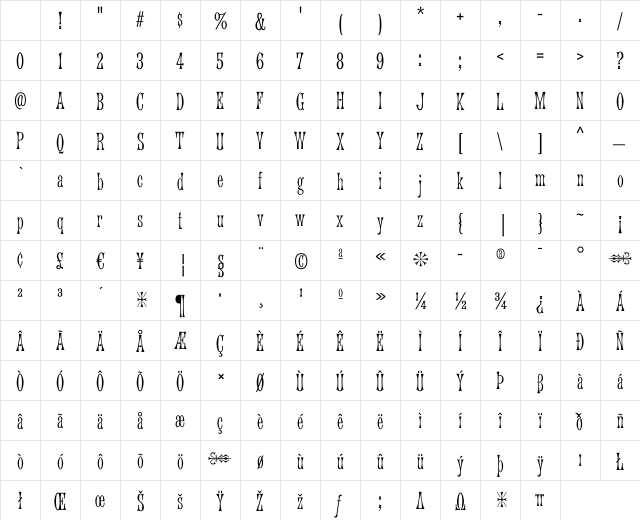
Complete ArchedGothicCondSG TT Regular glyph index. Displaying only characters natively supported by ArchedGothicCondSG TT Regular font.
ArchedGothicCondSG TT takes a clean, functional approach - its unadorned letterforms prioritise legibility and work reliably across screen and print environments. Its narrow stance lets it pack a punch even in space-constrained designs.
Font Pairing: Works well alongside a characterful serif or display font that can carry the expressive load while ArchedGothicCondSG TT handles the functional copy.
Pro Tip: Use ArchedGothicCondSG TT tightly set in headlines and banners - its condensed proportions make it ideal for maximum impact in minimum horizontal space.